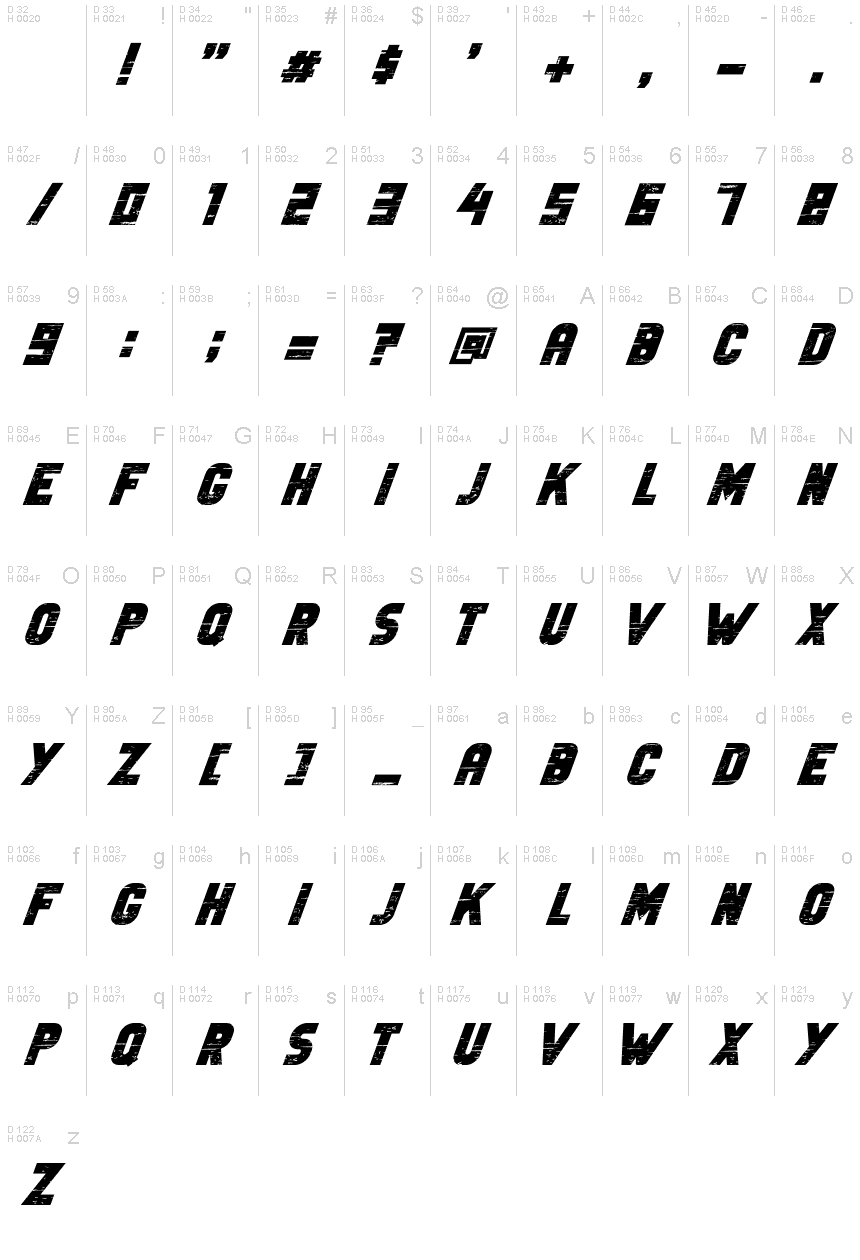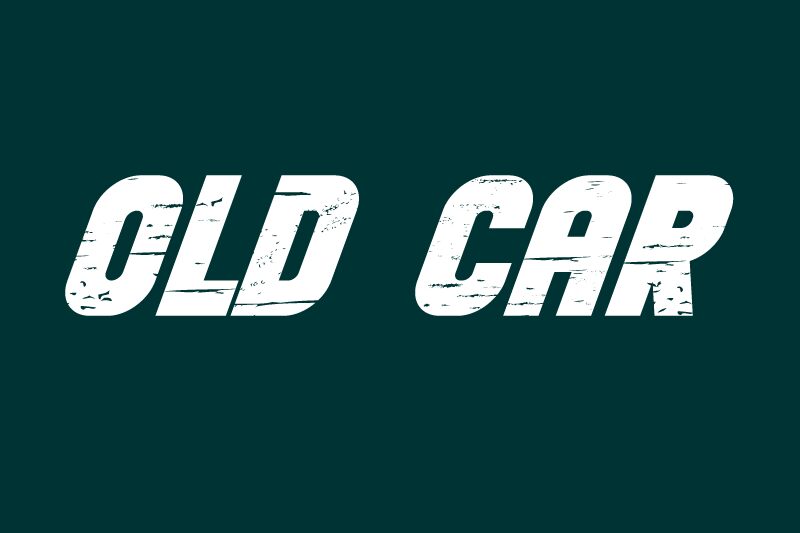
Old Car Bold Italic
The Old Car Bold Italic font, part of the Old Car font family by Design Vector10, is a display typeface with an eroded style. Its bold weight and condensed width make it ideal for vintage-inspired projects that require a touch of grit and character.
From retro logos and signage to packaging designs and movie titles, this font adds a nostalgic charm to any creative endeavor. Its unique texture and distinctive letterforms capture the essence of classic automobiles, providing a captivating visual experience for viewers. Let Old Car Bold Italic transport your audience back in time with its worn elegance.